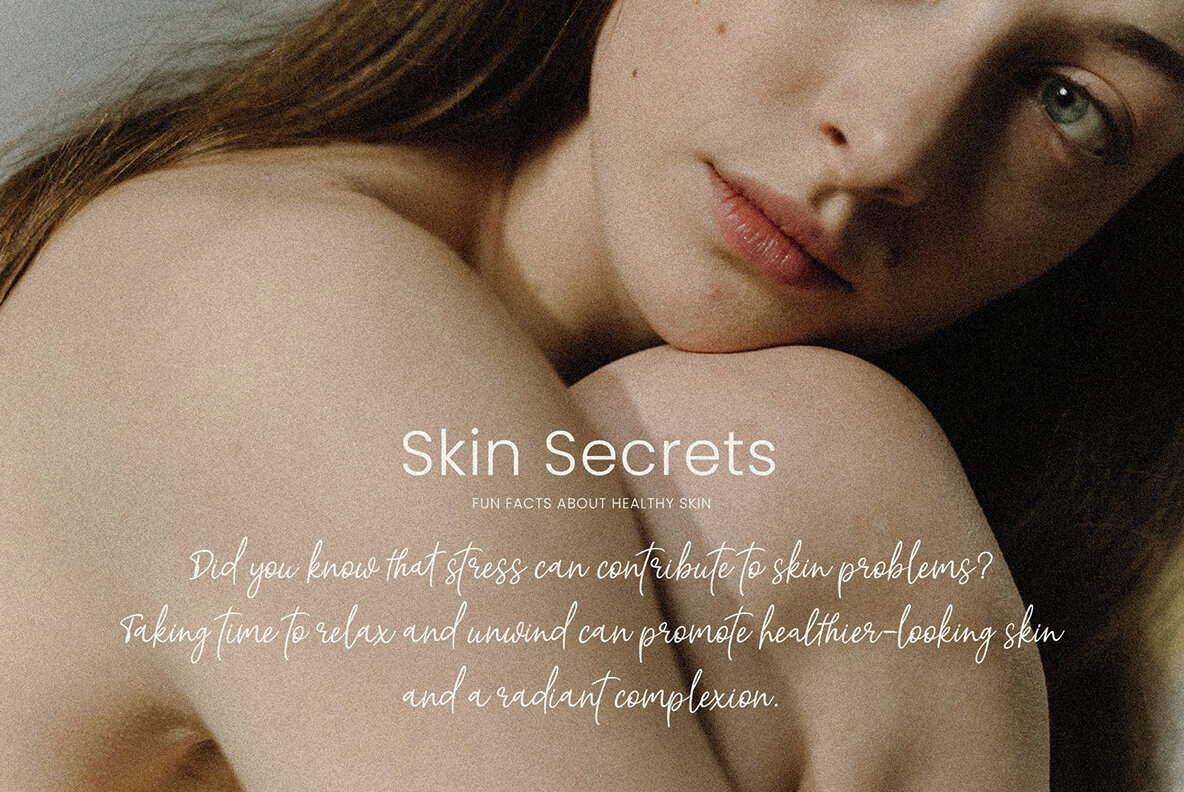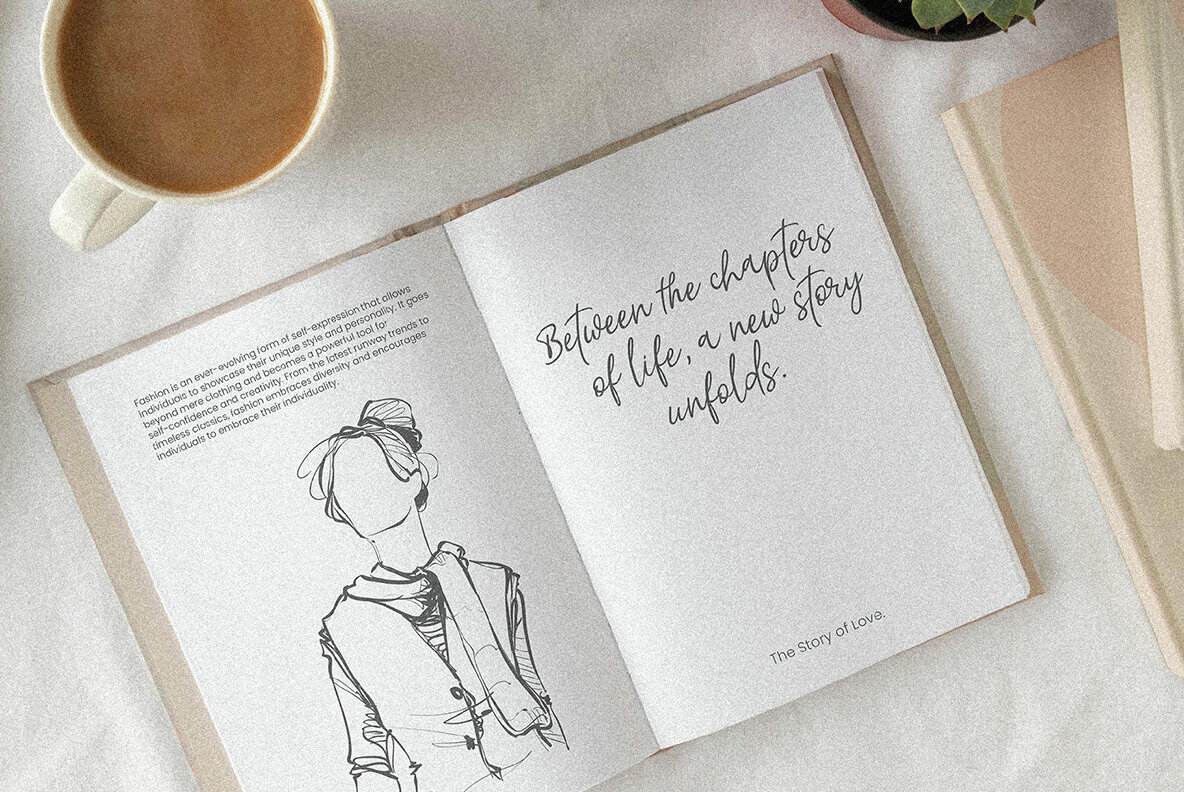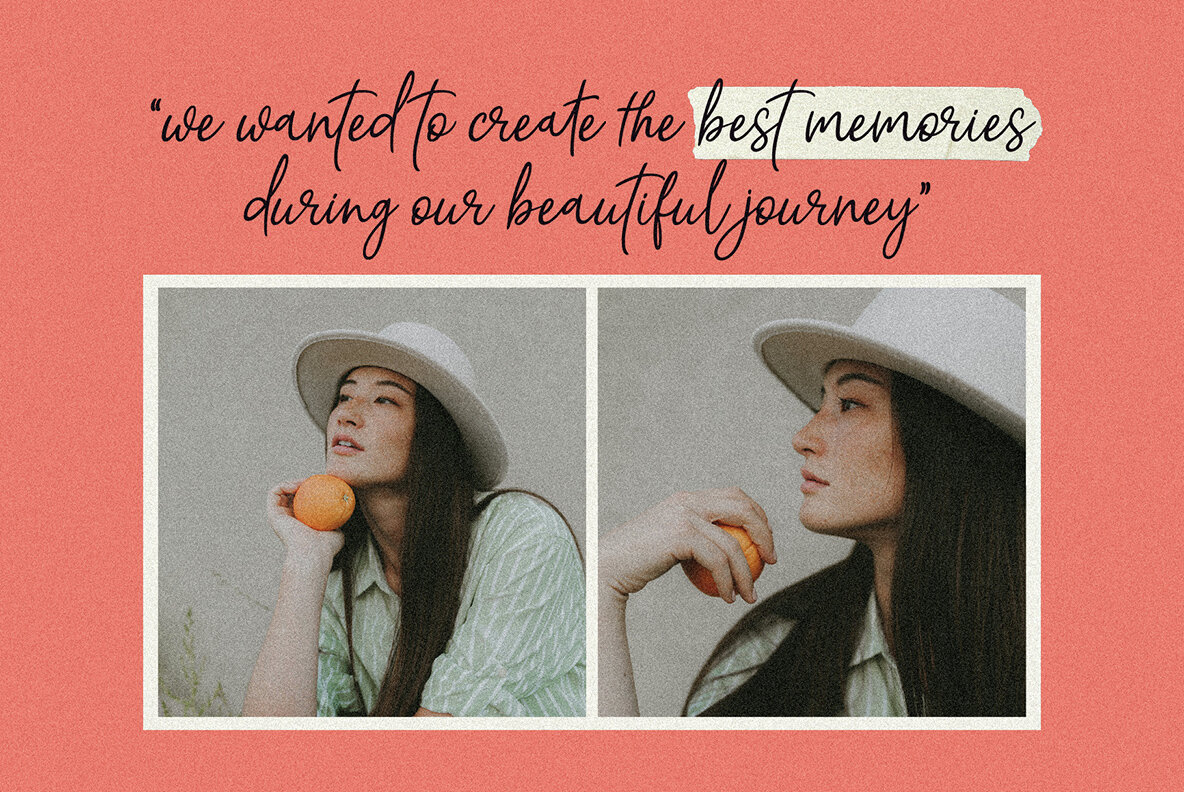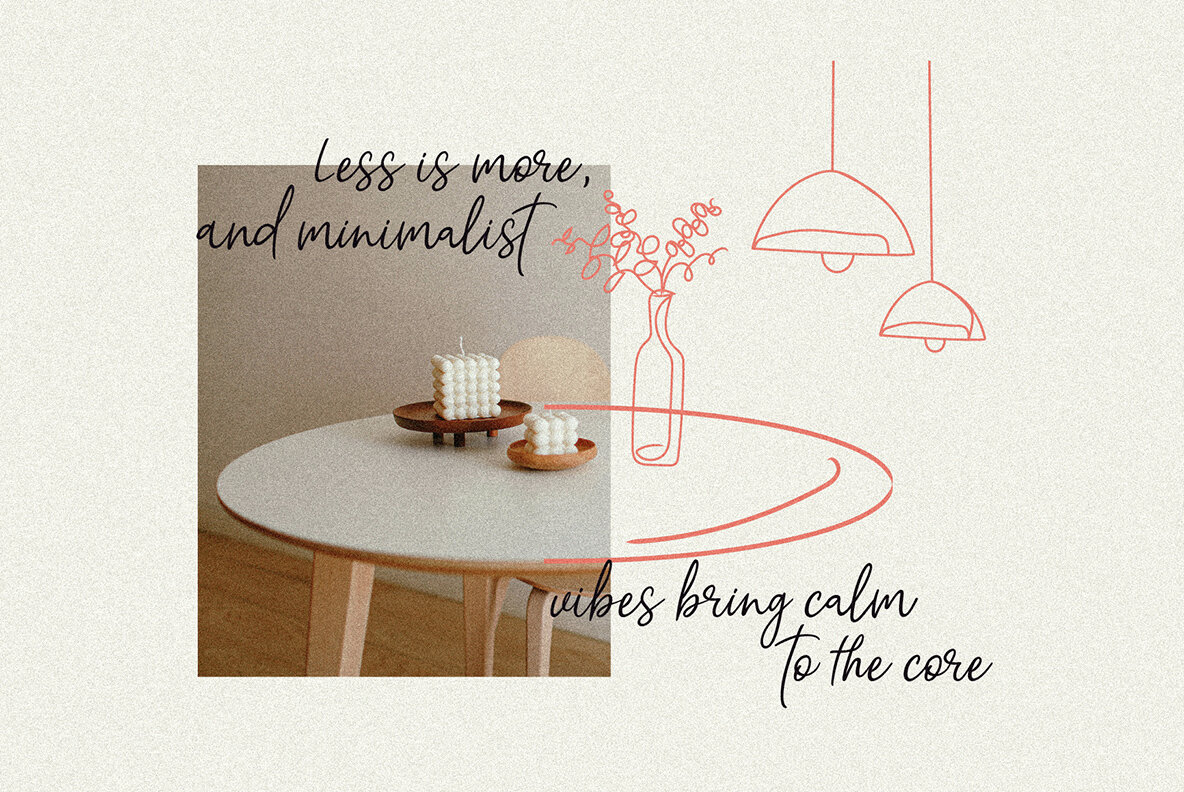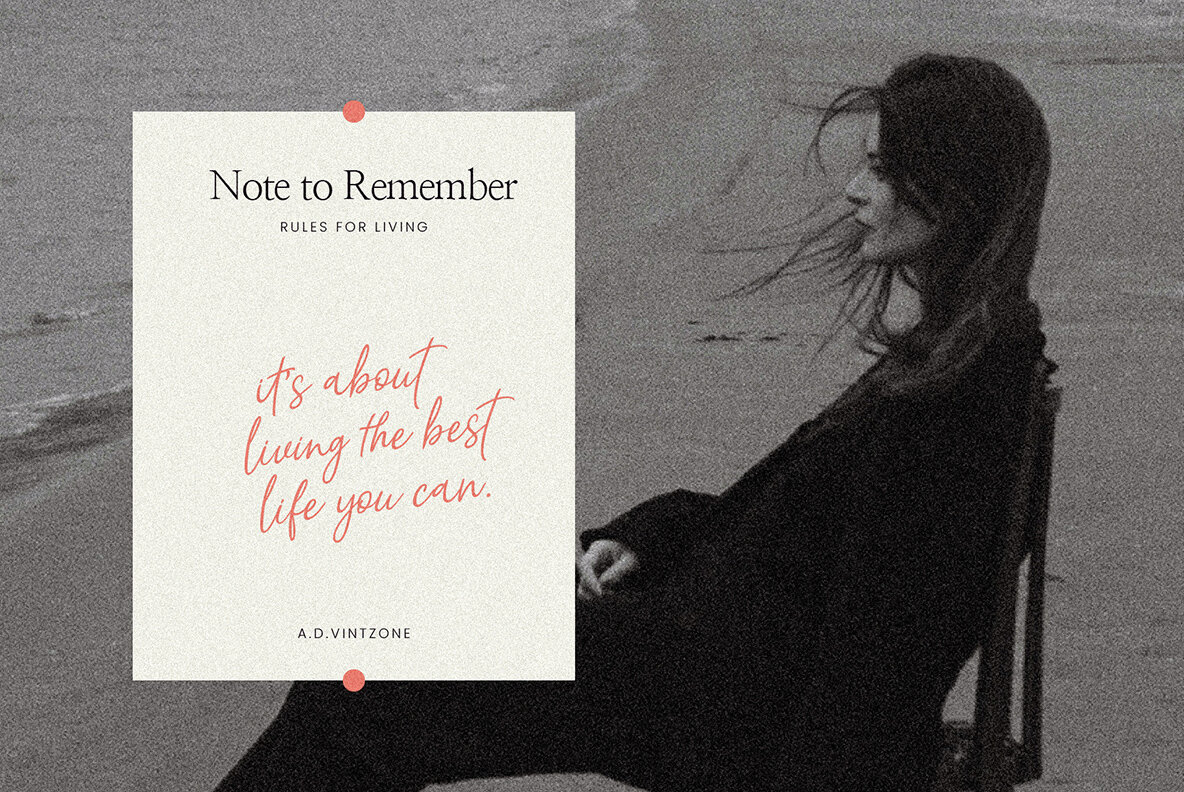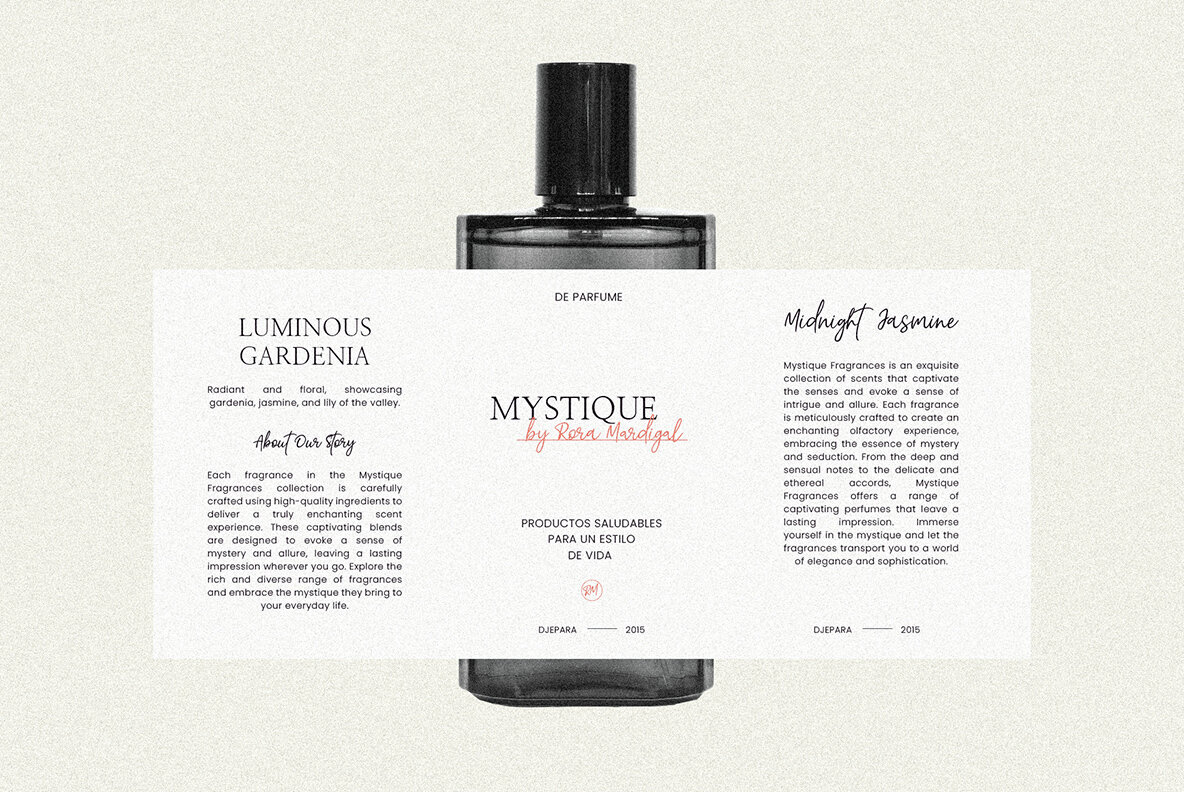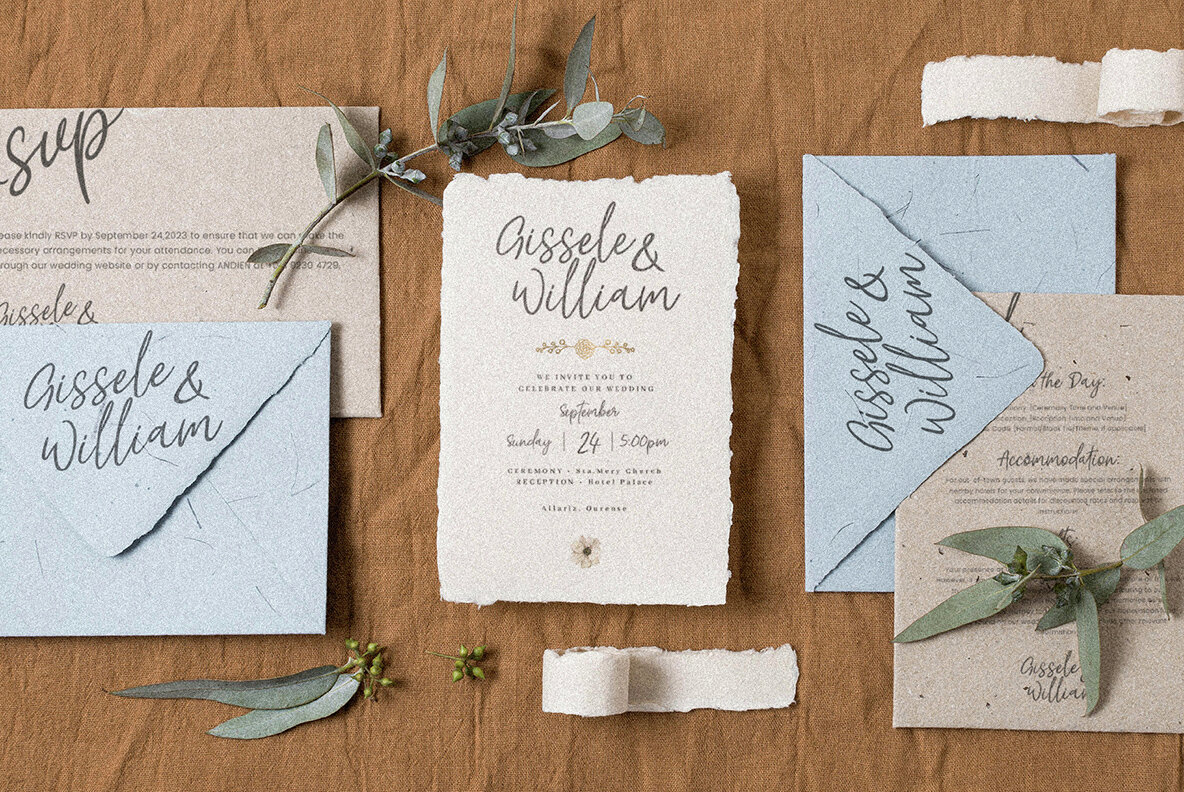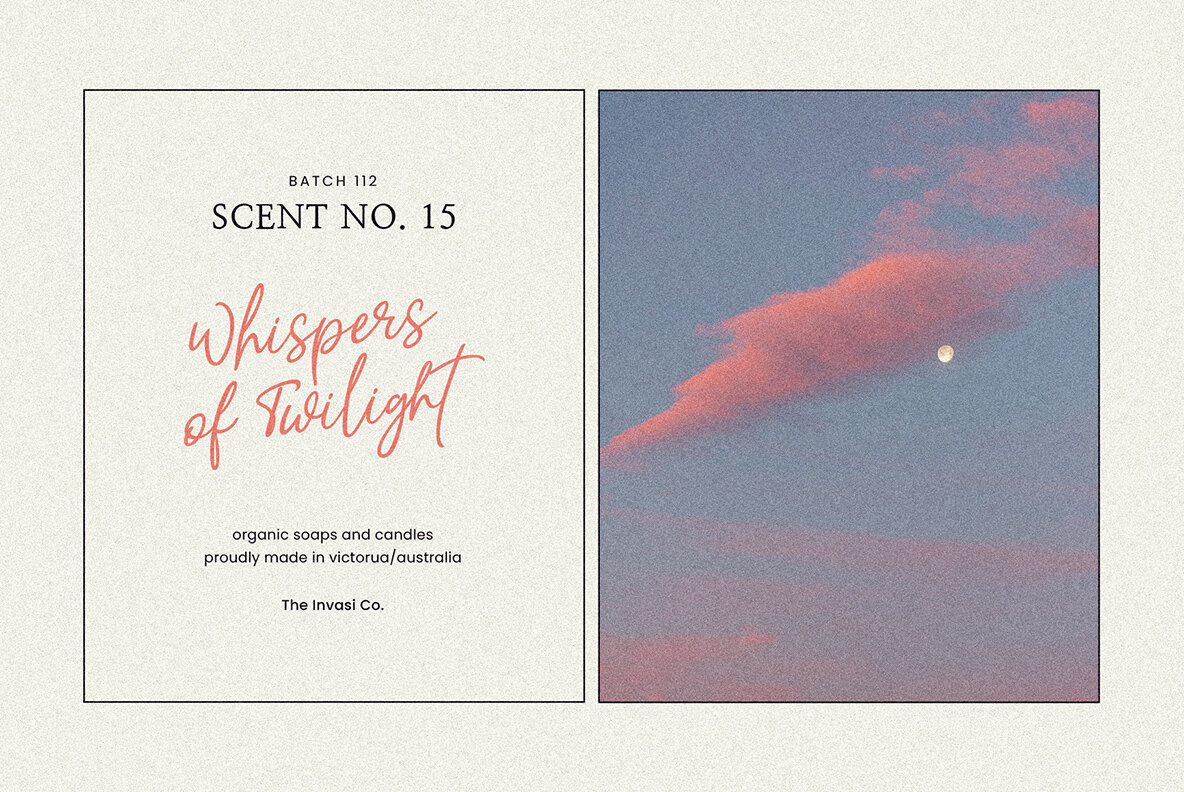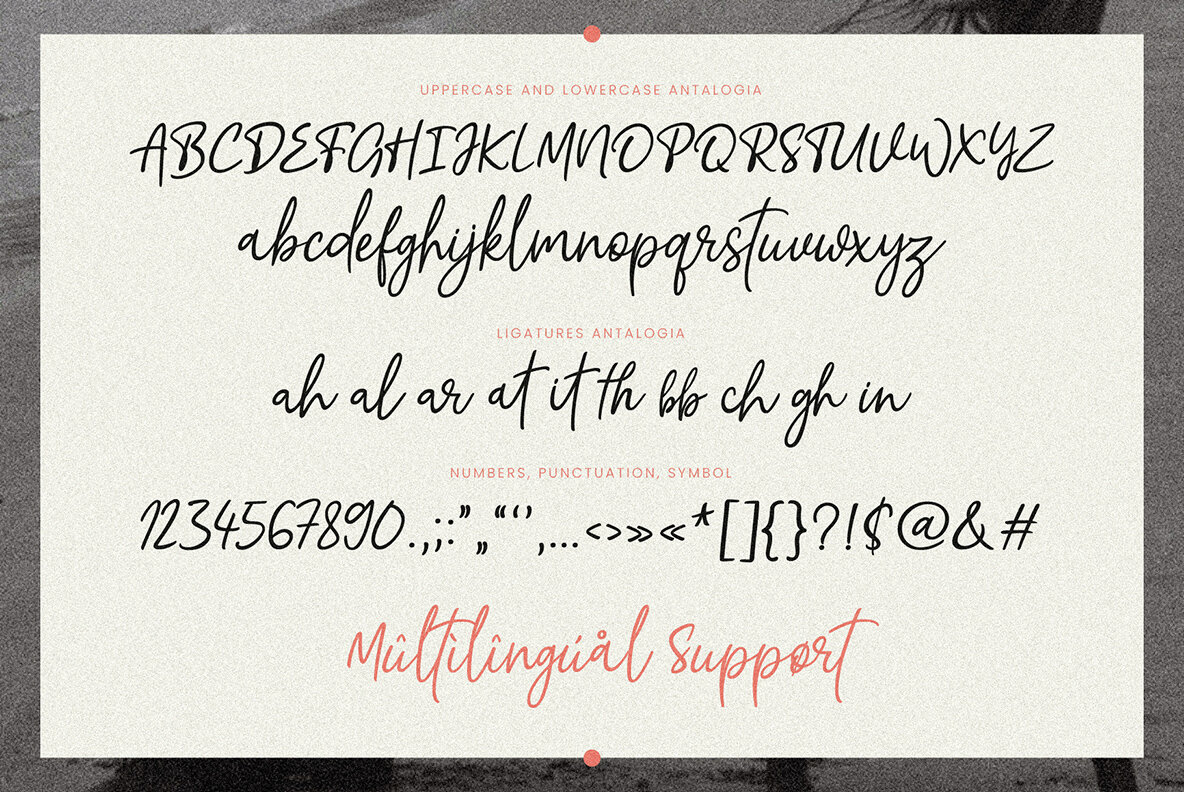
Antalogia Font
Antalogia Script
Antalogia is an elegant signature script font that exudes luxury and sophistication. With its graceful and flowing strokes, this font adds a touch of elegance and refinement to any design project. The font features beautiful ligatures that seamlessly connect letters, enhancing the overall aesthetic appeal. Additionally, Antalogia supports multilingual Latin characters, ensuring versatility for design needs. Whether you're working on headings, invitations, logotypes, flyers, greeting cards, product packaging, book covers, or printed quotes, Antalogia is the perfect choice to elevate your designs and create a sense of timeless beauty. Its elegant and refined style will captivate viewers and leave a lasting impression.